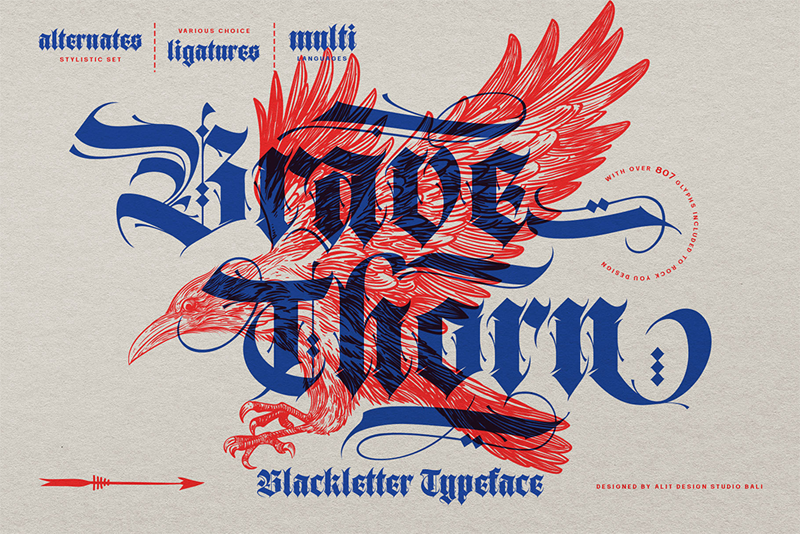
Preview and download Brave Thorn Font. Created by Alit Design in Gothic Medieval styles with Free for personal use license.
| Categories | Gothic, Medieval |
| Author: | Alit Design |
🗡️ Brave Thorn Font 🌹 Introducing Brave Thorn - a formidable Blackletter font that commands attention with its bold strokes and intricate details. This font embodies strength and courage, making it perfect for headlines, logos, and branding that demand to be noticed. This is font Demo just for personal use, Not permitted for commercial use. The donation is very appreciated. Please check here for more info about the license: https://alitdesign.net/license/ DOWNLOAD FULL VERSION AND FOR COMMERCIAL USE: https://alitdesign.net/product/brave-thorn-blackletter-font/ Creative Market: https://creativemarket.com/alitdesign/92164920-Brave-Thorn-Blackletter-Font visit my website for full version and commercial use: https://alitdesign.net/ follow my Instagram to update my portfolio: https://www.instagram.com/alitdesign_studio/ Email : info@alitdesign.net |